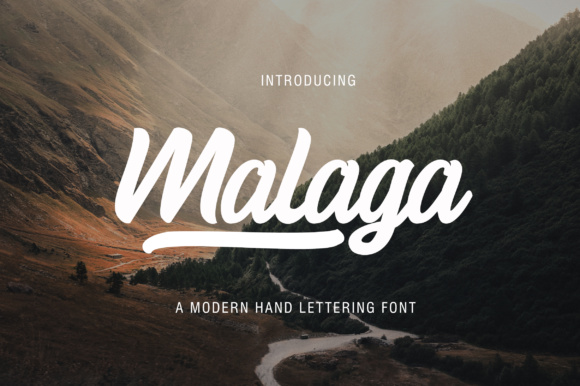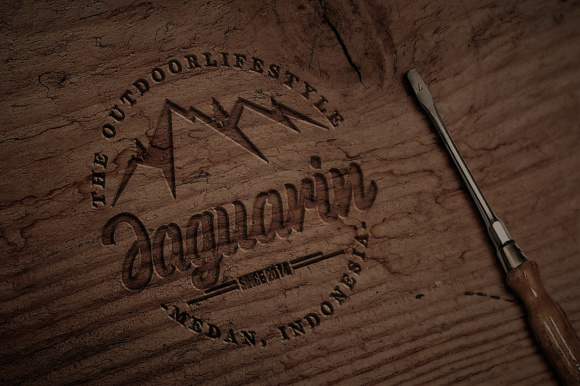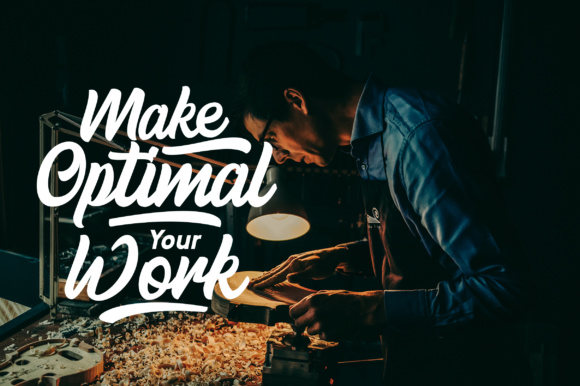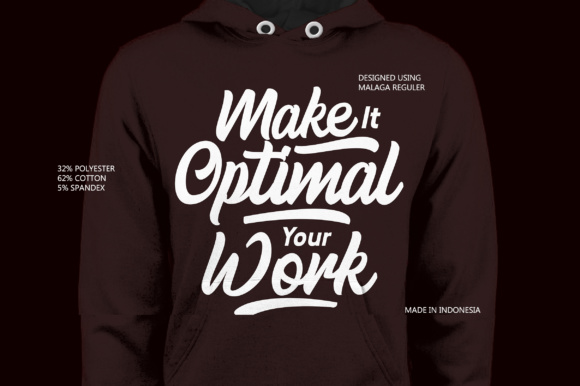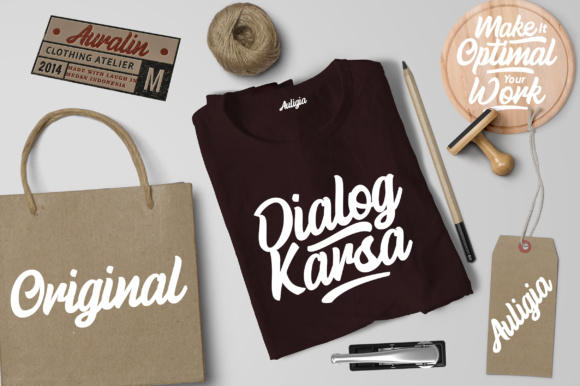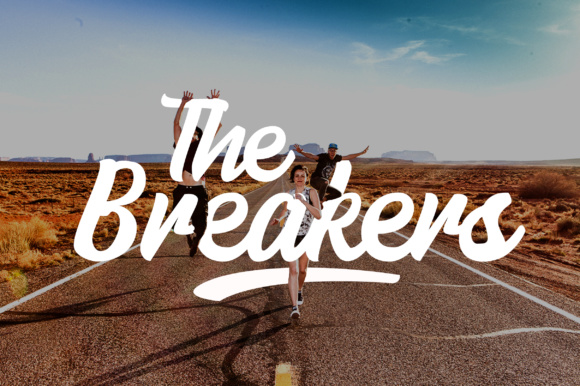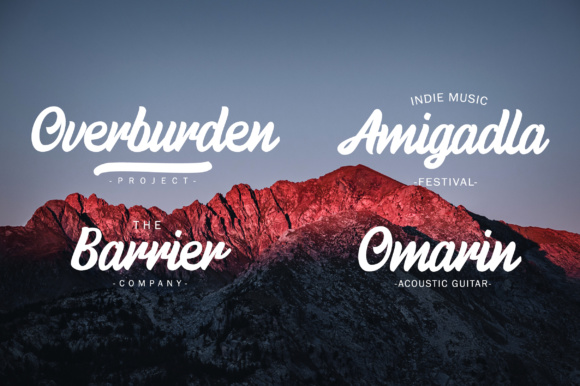
Malaga Font
About Malaga Font
Malaga is a modern hand lettering font. Malaga has a fun, playful style that works great in different type of projects. Malaga is legible and comes with alternative options.